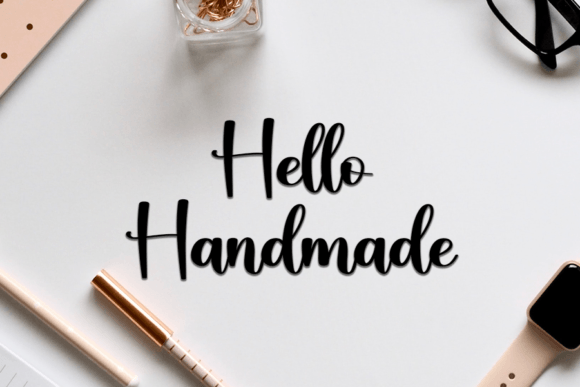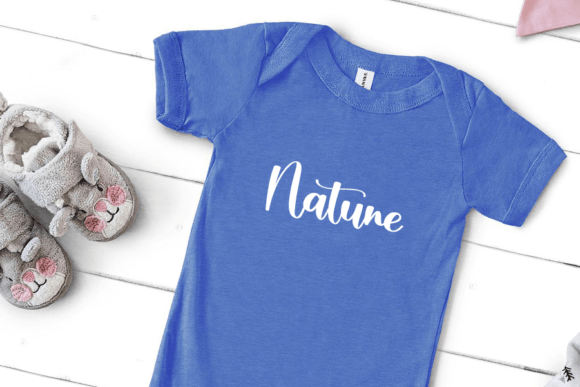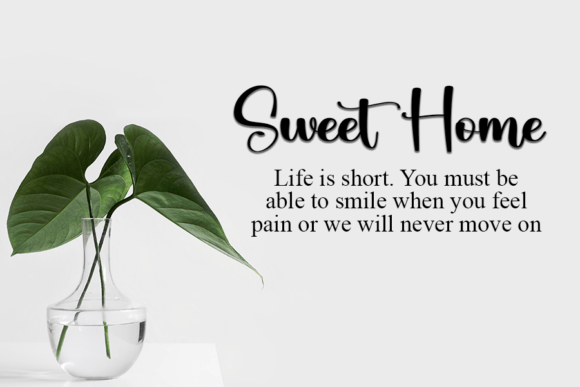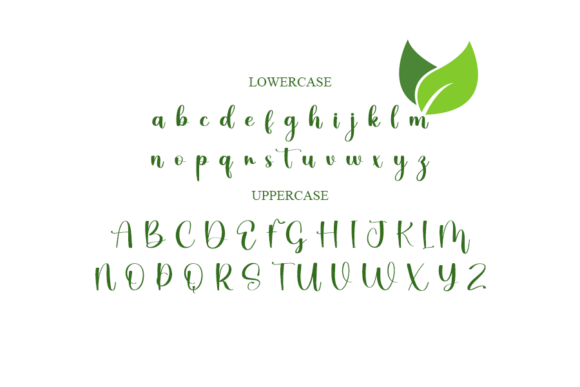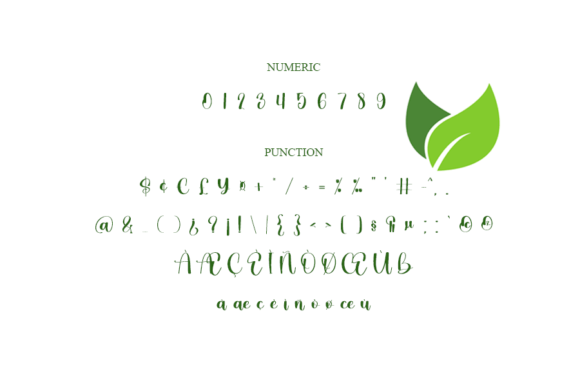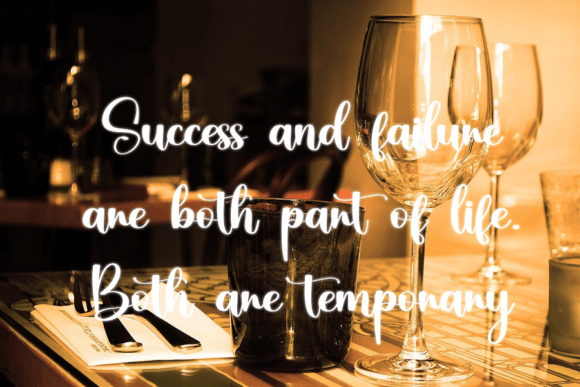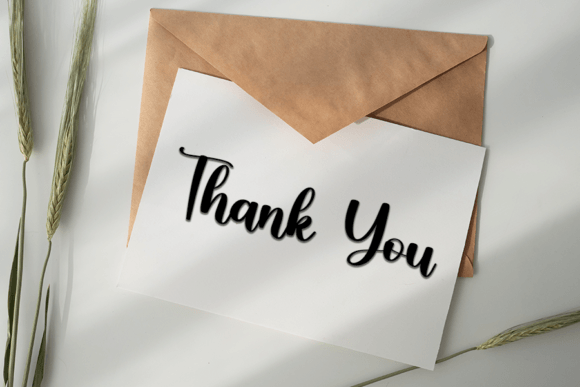
Nature Font
About Nature Handwritten Font
Nature Handwritten Font is a delicate and stylish script typeface designed to bring elegance and authenticity to your creative projects. With its graceful strokes and carefully crafted details, it captures the natural beauty of handwriting while maintaining a professional polish. Because of its versatility, Nature Handwritten Font works beautifully for invitations, packaging, logos, posters, food labels, and digital designs.
A Handwritten Typeface with Natural Charm
Handwritten fonts often convey personality and warmth, and Nature HandwrittenFont reflects this spirit with perfection. Its letters are smooth and balanced, neither too thin nor too bold, making them both legible and elegant. In addition, its handcrafted flow ensures that every design stands out with originality.
Special occasions deserve a font that feels personal, and Nature HandwrittenFont excels in this role. For example, it adds sophistication to wedding invitations, thank-you notes, and menus. Moreover, it enhances seasonal greeting cards, birthday stationery, and holiday projects, ensuring every creation feels memorable and heartfelt.
A Script Typeface for Branding and Packaging
Businesses and designers can benefit from Nature HandwrittenFont in branding and packaging. It looks stunning on boutique logos, product labels, and food packaging. Furthermore, it adapts seamlessly to advertising layouts, magazine covers, and social media promotions. When paired with clean sans serif fonts, it creates a balanced and professional visual identity.
Flexible Across Print and Digital Platforms
Another advantage of Nature HandwrittenFont is its adaptability across different mediums. In print, it enriches posters, brochures, and merchandise. Digitally, it integrates smoothly into blogs, websites, and online shops. Since it maintains clarity across sizes, from small icons to large banners, it ensures consistent quality in every project.